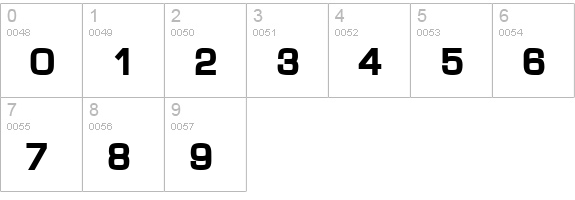
Waukegan LDO Black Font Details
Waukegan LDO Black is a maximum-weight, dramatic variant in the Waukegan typeface family \xE2\x80\x94 well suited to maximum-impact headlines, posters, and packaging.
Waukegan LDO Black font is a stunning display typeface that exudes a sense of boldness and strength. With its sleek and modern design, it is perfect for creating eye-catching headlines, logos, and posters that demand attention. What sets Waukegan LDO Black font apart is its versatility. Whether you're designing for a corporate brand, a fashion magazine, or a music album cover, this font will add a touch of sophistication and elegance to your project. Its clean lines and sharp edges make it easy to read even at small sizes, ensuring that your message is conveyed with utmost clarity. But what truly makes Waukegan LDO Black font stand out is the fact that it is freely available to download at FontsMarket.com. Yes, you read that right - you can access this remarkable font without any cost. This means that you can enhance your designs with a premium-quality typeface without having to break the bank. So why wait? Take advantage of this incredible opportunity and download Waukegan LDO Black font today. Whether you're a professional designer or a hobbyist, this font will undoubtedly elevate your creations to new heights. Don't miss out on the chance to add a touch of sophistication and professionalism to your work - get Waukegan LDO Black font now, free of charge, at FontsMarket.com.